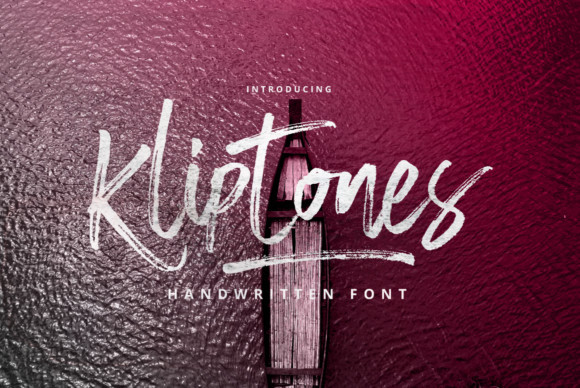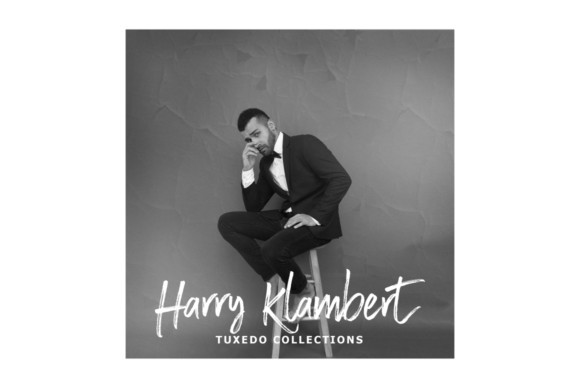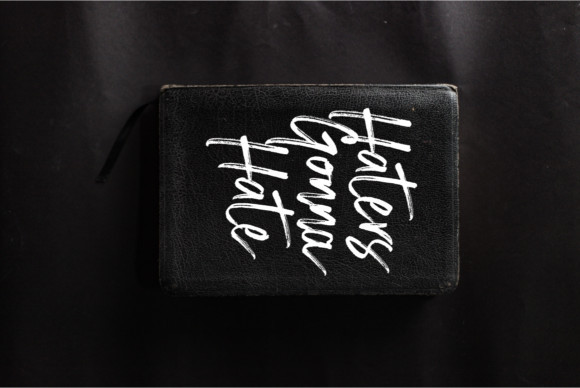
Kliptones Font
Kliptones is a brushed handwritten font. It looks stunning on wedding invitations, thank you cards, quotes, greeting cards, logos, business cards and every other design which needs a handwritten touch.